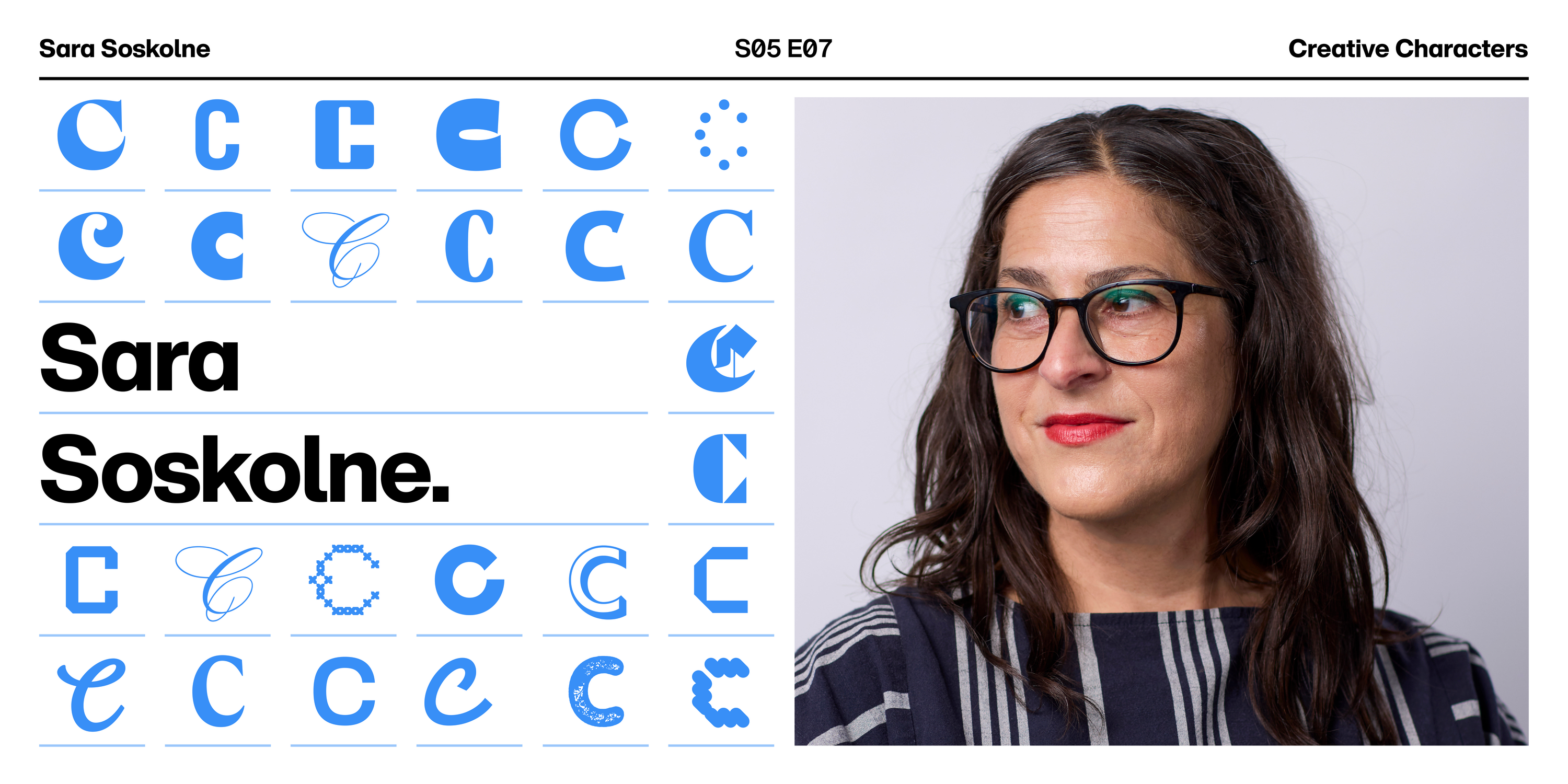
Creative Characters S5 E7: Sara Soskolne: A life shaped by letters.
Sara Soskolne.
From studying 19th-century sans serifs to expanding Gotham for the Obama Foundation, Sara Soskolne’s career has helped define how the world reads today.
In this episode, Doug Wilson sits down with his longtime friend and brilliant type designer, Sara Soskolne, for an honest, wide-ranging conversation about growing up curious, falling into typography, and Sara’s experiences of coming into her own in a male-dominated field. It’s an episode filled with humor, insights, and a touch of typographic magic.